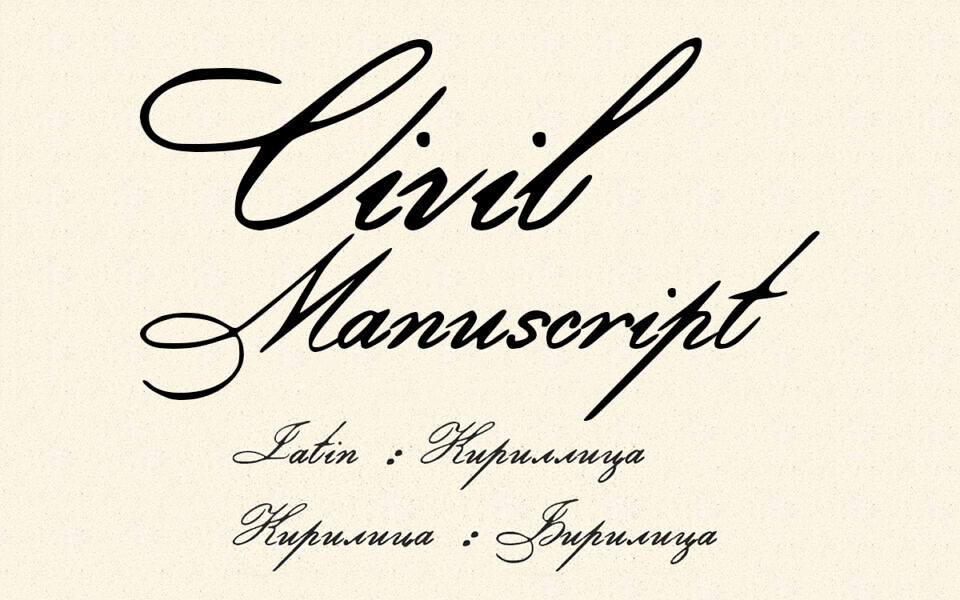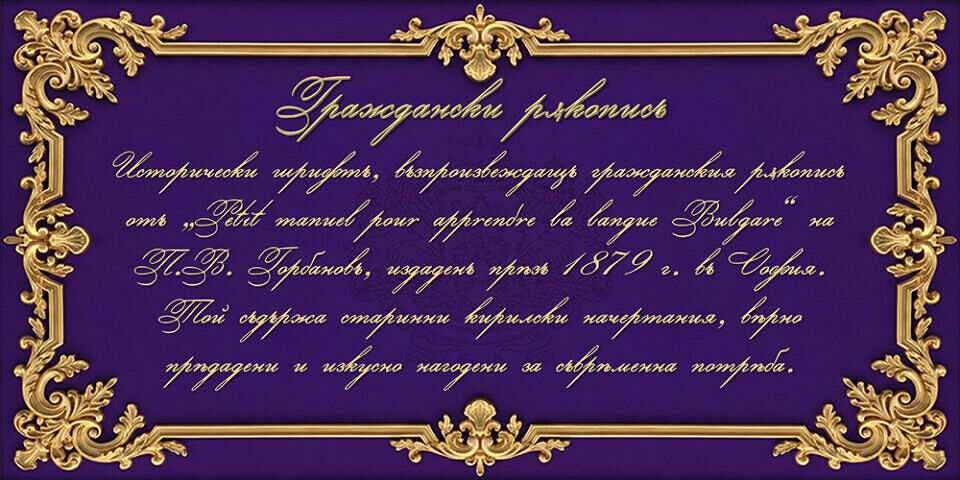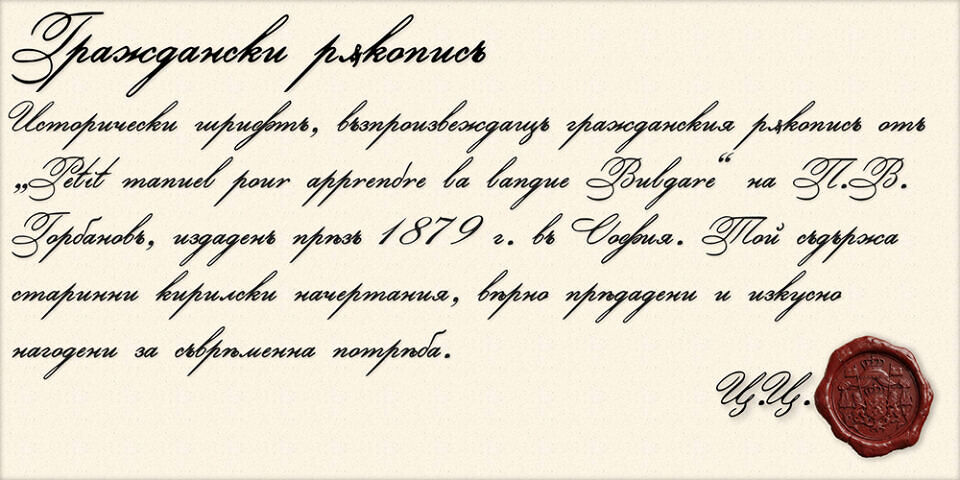
Civil Manuscript is a historical Cyrillic typeface based on 19th-century Bulgarian handwriting and orthography. Inspired by the 1879 “Petit manuel pour apprendre la langue Bulgare” by P. V. Gorbanoff (published in Sofia), this font preserves extended Cyrillic glyphs including “Yat”, “Big Yus”, and “Iotated Big Yus”.
It is designed for historical reconstructions, educational materials, and cultural heritage projects.